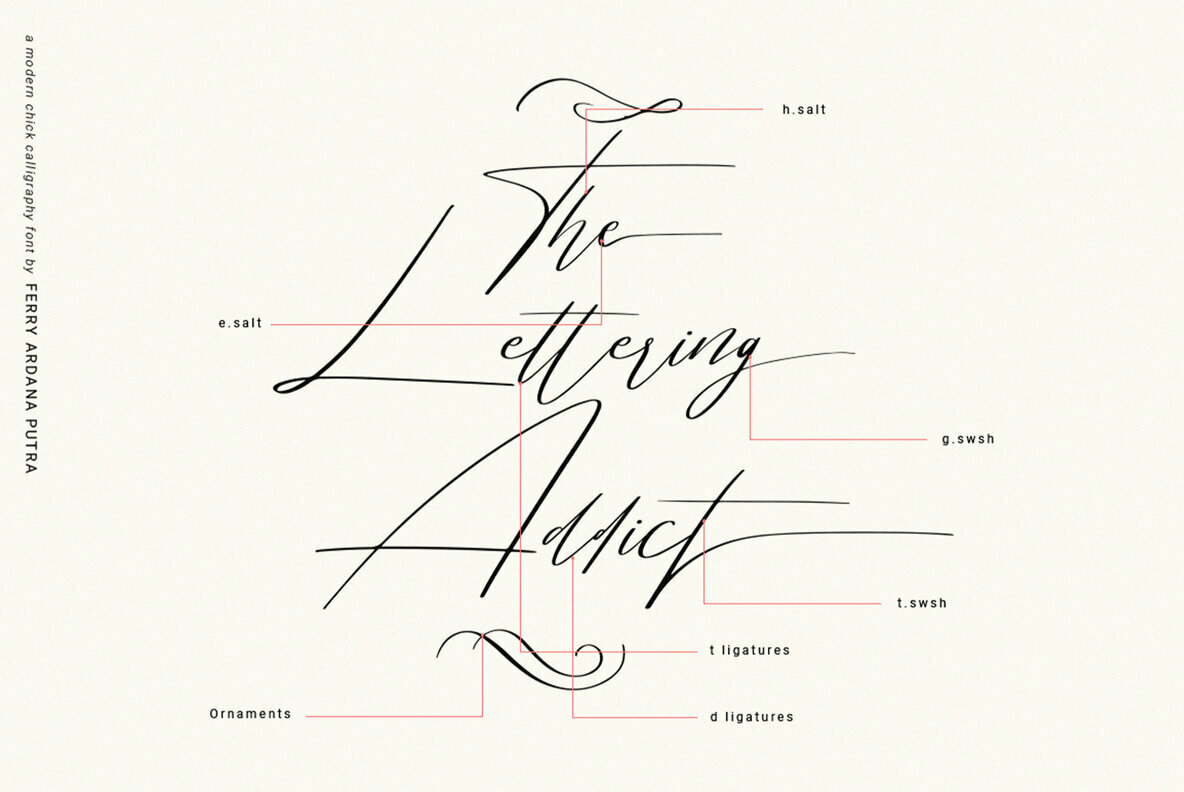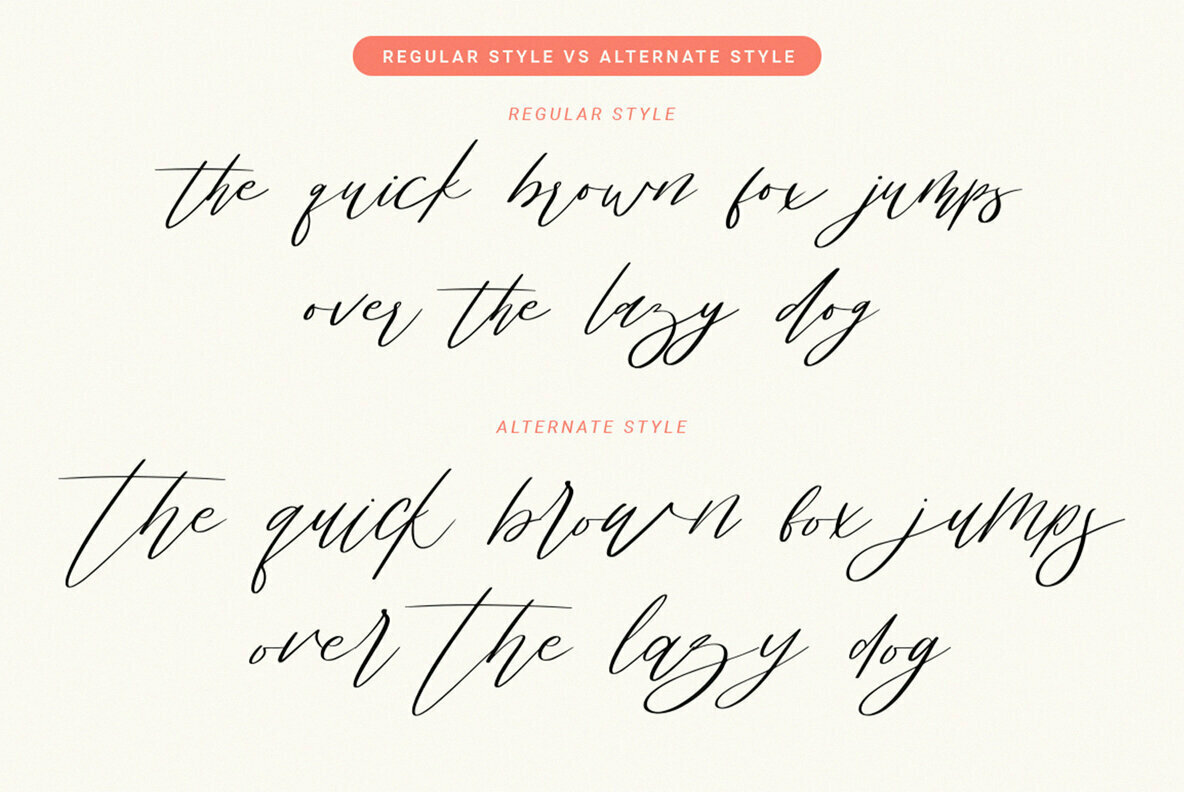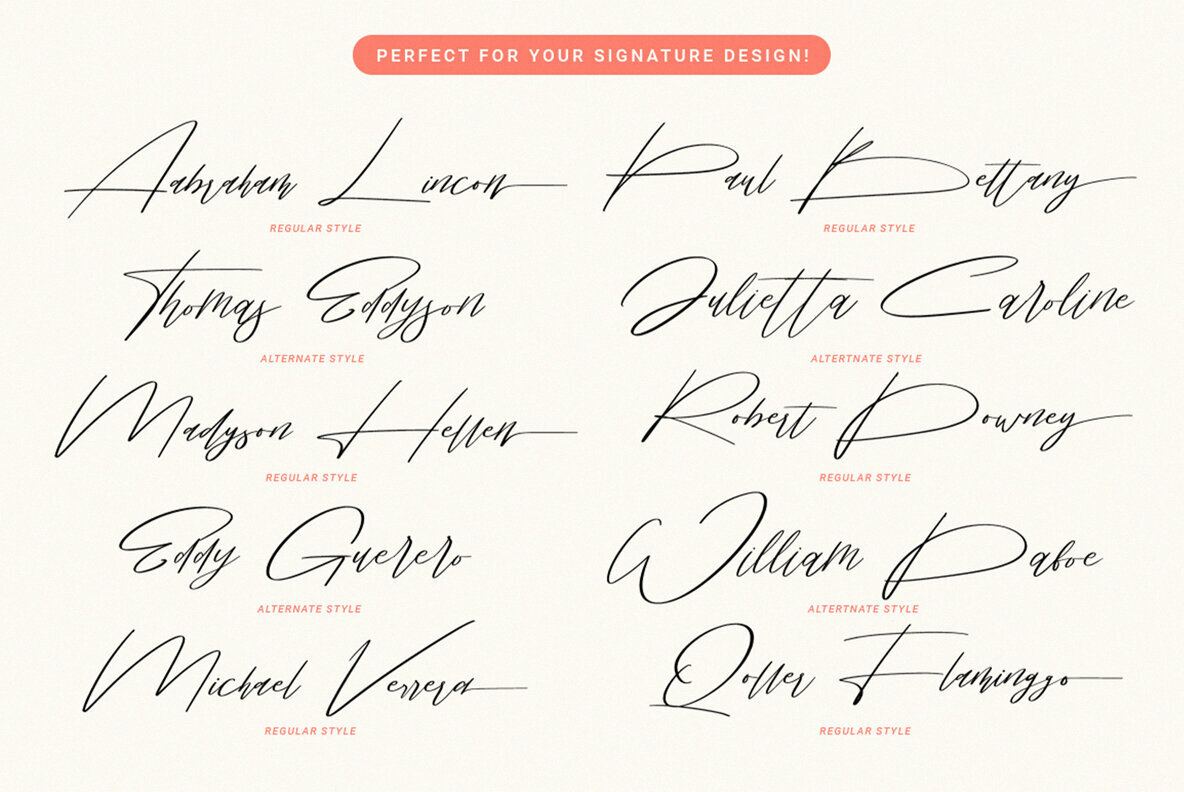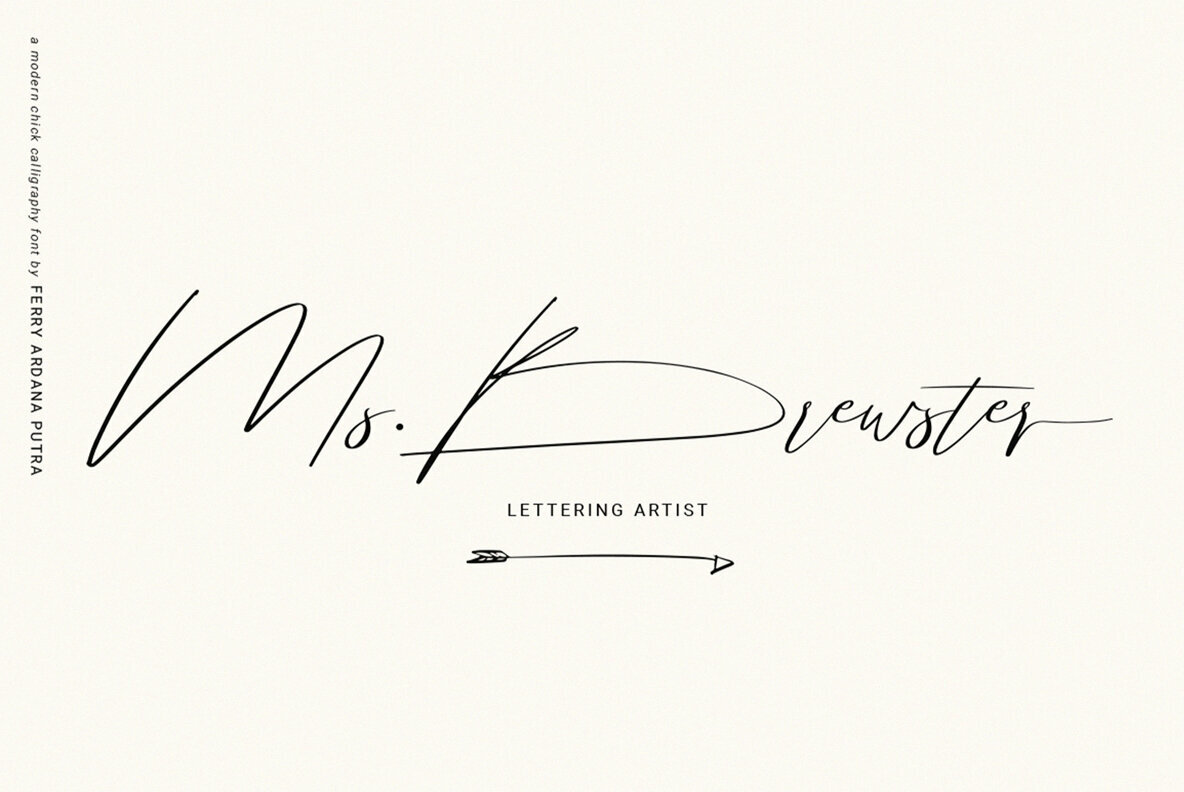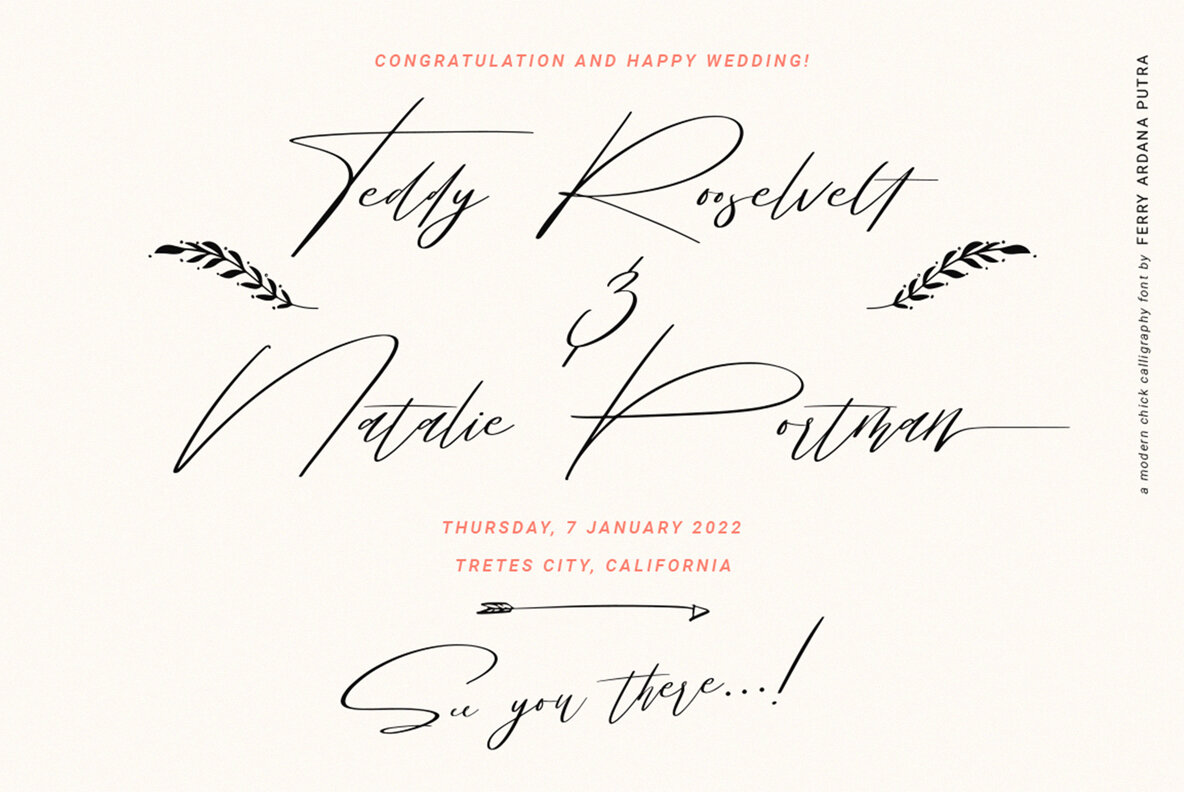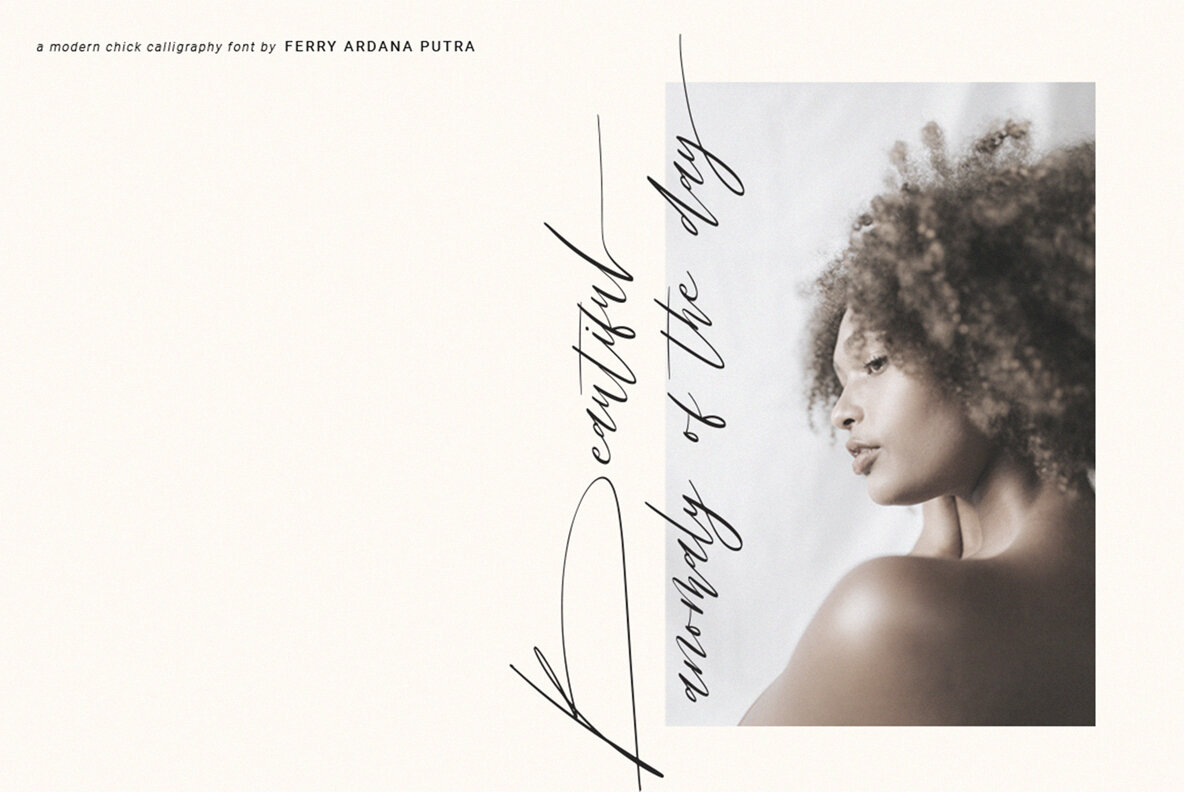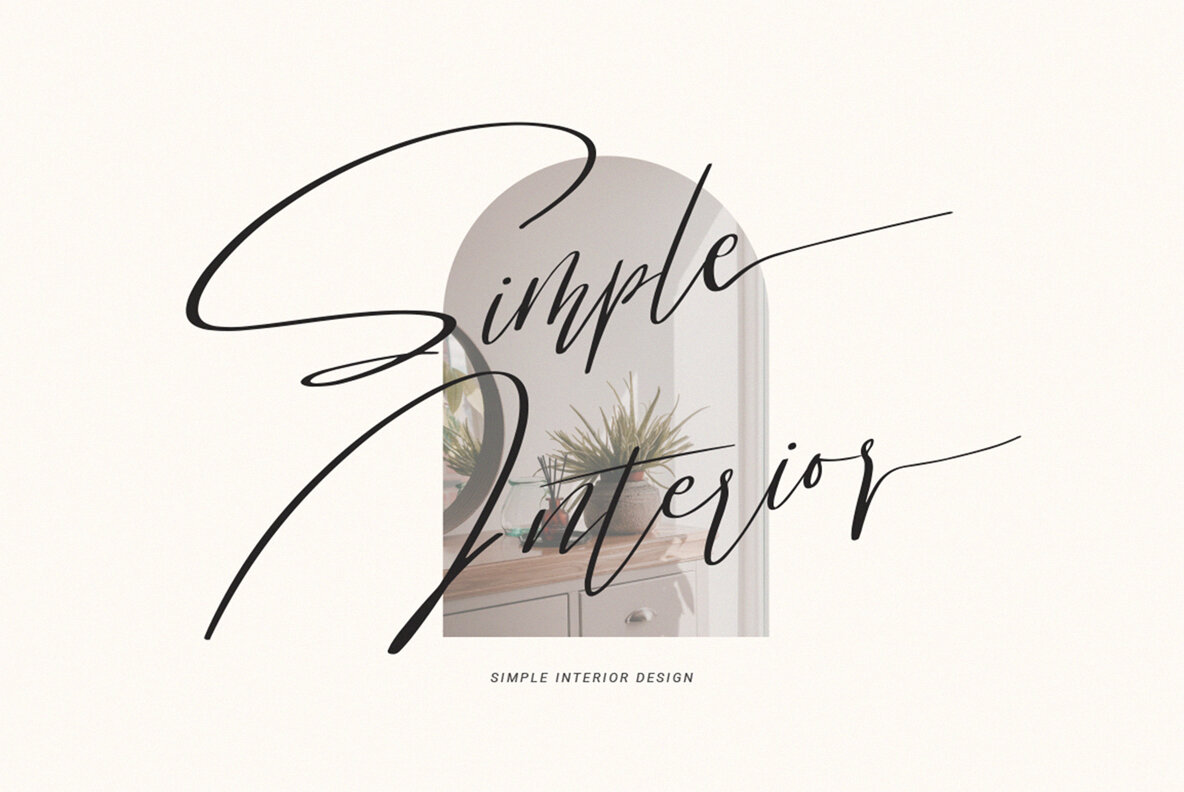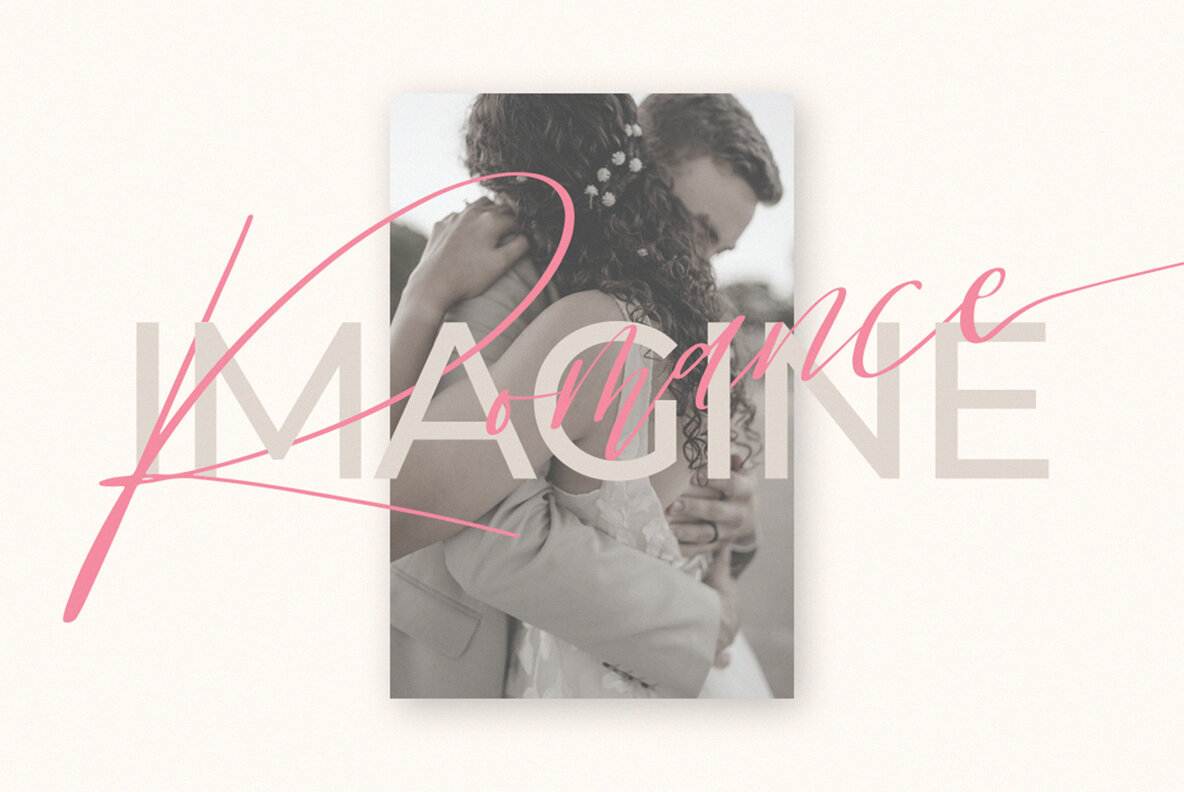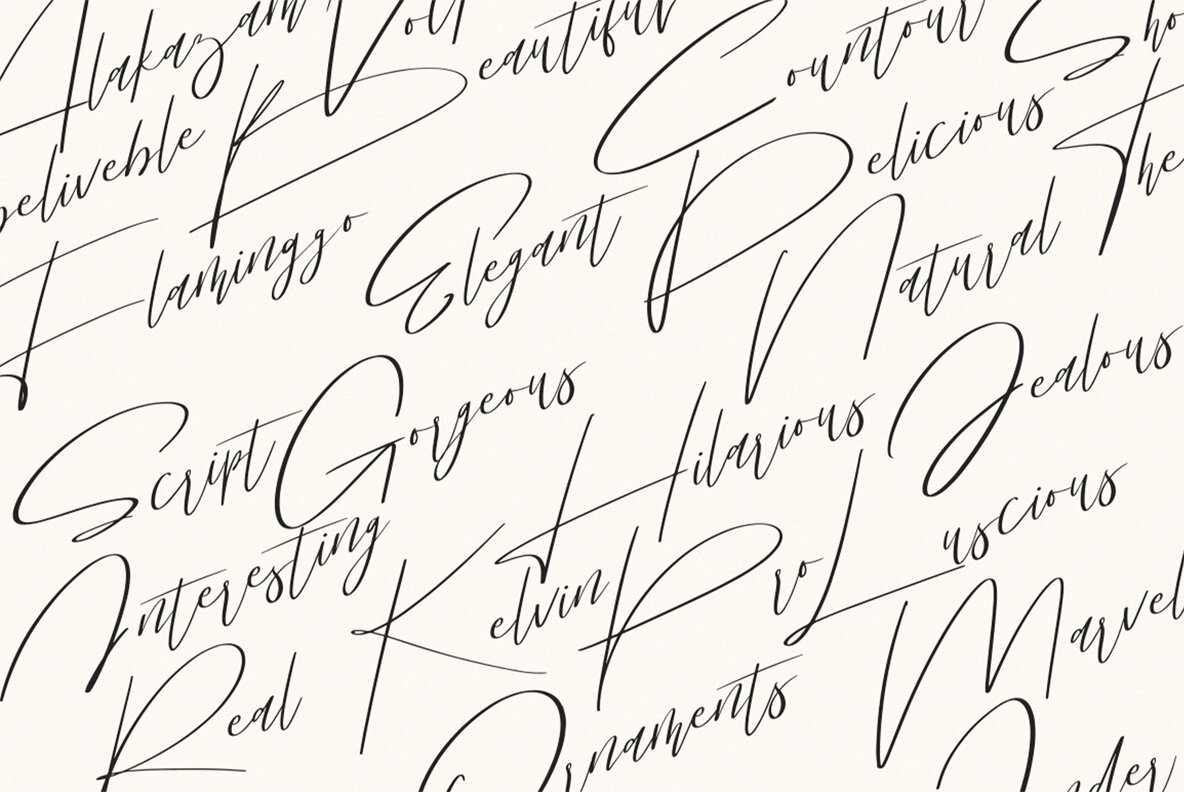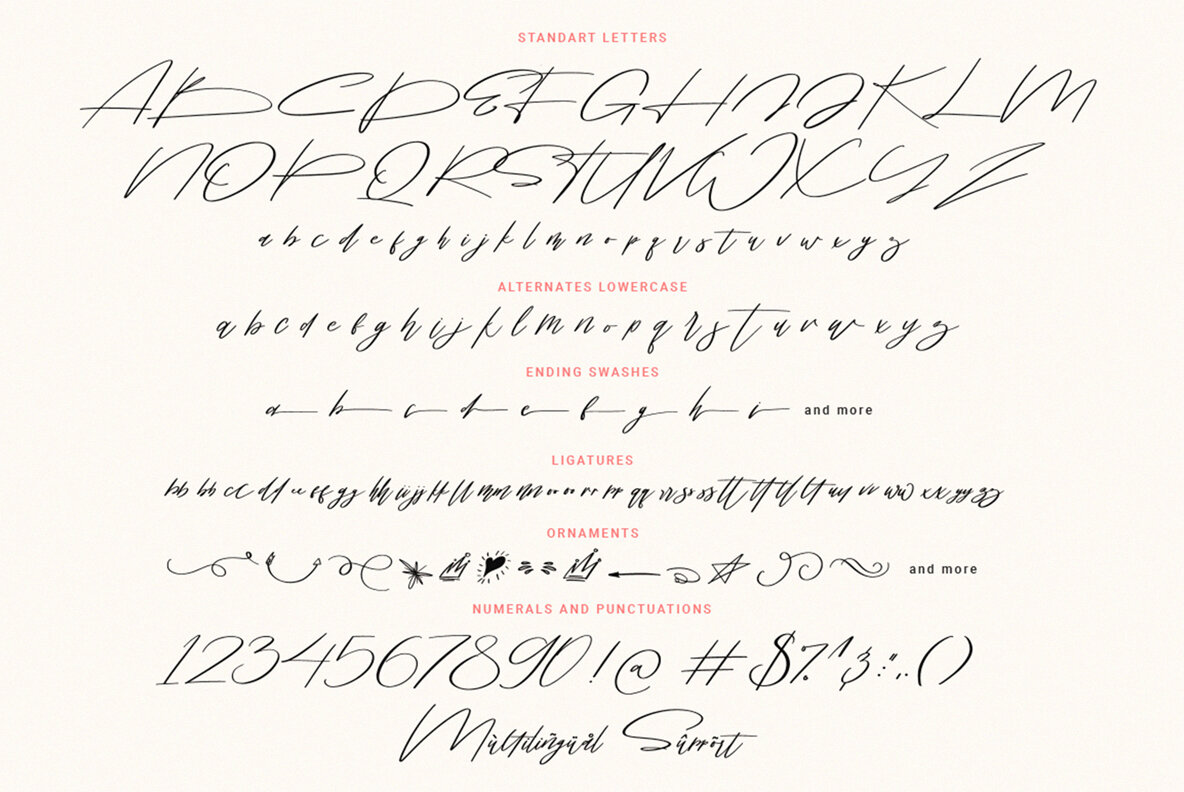
Wak Ndjon Font
The Wak Ndjon font, crafted by the talented Ferry Ardana Putra, embodies the refined art of modern calligraphy. Inspired by the fluidity of natural handwriting and the spontaneity of pen scratches, this typeface radiates luxury through its swashes, alternates, and ornate details. Whether you're designing for branding or creating invitations, Wak Ndjon seamlessly integrates a sophisticated touch, enhancing your project's sense of glamour and authenticity.Wak Ndjon: Luxurious Calligraphy With Natural Elegance